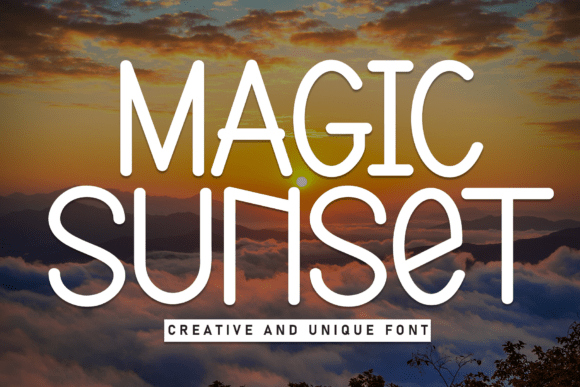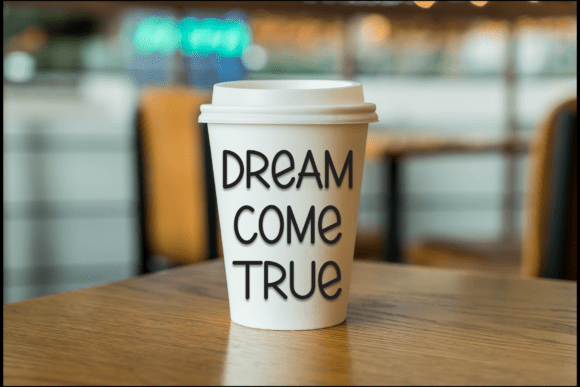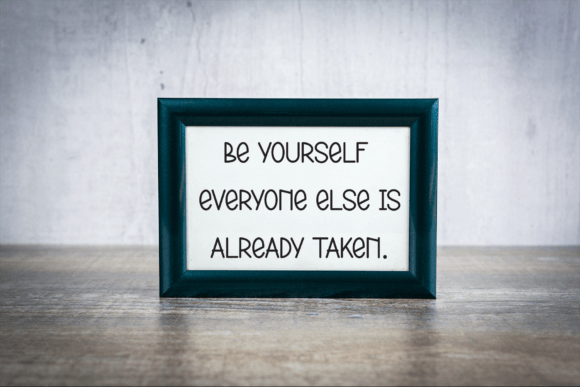
Magic Sunset Font
About the Magic Sunset Font
Crafted with precision, the Magic Sunset Font is ready to bring your ideas to life. Magic Sunset is a casual and neat display font that radiates a fresh, friendly vibe. With clean lines and a relaxed structure, it’s perfect for packaging, posters, and social media graphics. The approachable design adds charm and clarity to projects while maintaining a polished appearance.
Magic Sunset’s friendly personality makes it ideal for branding projects targeting a young, approachable demographic, particularly those in the food, beverage, or lifestyle sectors. It excels in headlines, short taglines, and logos, adding a touch of casual sophistication. Avoid using it for large blocks of body text or UI elements where readability is paramount; its charm is best served in concise applications.
Pairing Magic Sunset with a clean sans-serif like Open Sans for body text creates a balanced and readable hierarchy. For a more playful feel, consider pairing it with a rounded geometric sans-serif such as Circle Std. A contrasting serif like Playfair Display can add a touch of elegance if a more sophisticated feel is desired.
The overall mood is optimistic and carefree, making it unsuitable for projects requiring a serious or formal tone. Its strength lies in its ability to convey approachability and warmth without sacrificing visual appeal.
Magic Sunset Font Usage Examples
Magic Sunset Font Example